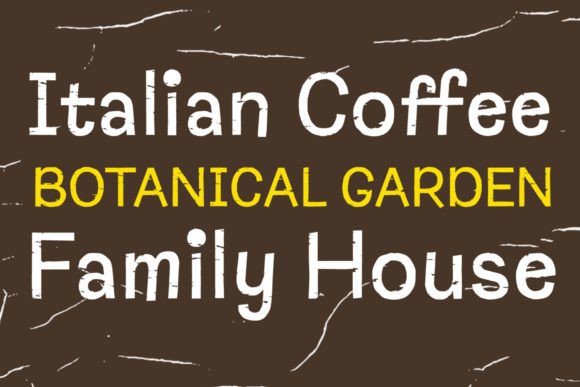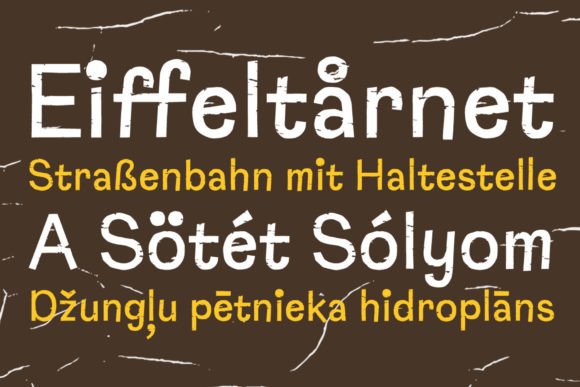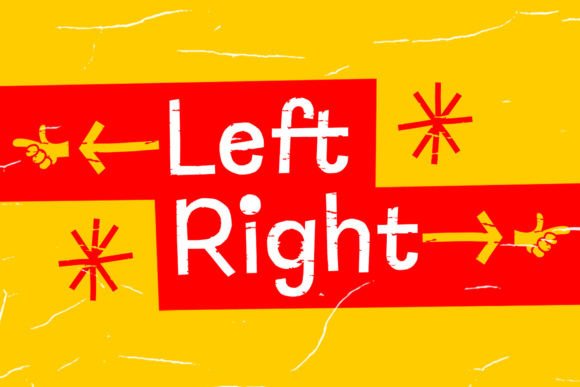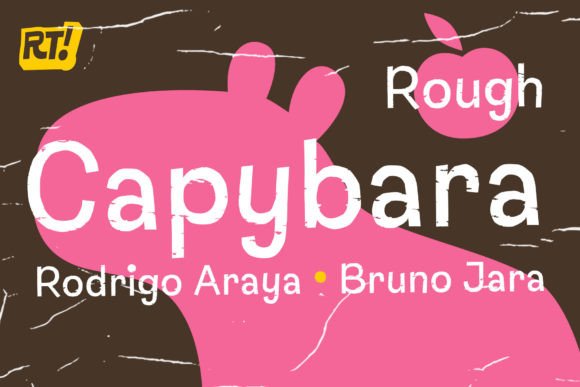
Introducing Capybara Rough Font: The Perfect Choice for Youthful and Playful Designs
Are you a designer or crafter looking for a font that exudes a playful and informal vibe? Look no further than Capybara Rough Font! This charming typeface is perfect for creating eye-catching titles and logos for youth and children’s projects. With its rough texture and carefree style, Capybara Rough is sure to capture the attention of your audience and leave a lasting impression.
What Makes Capybara Rough Font So Special?
Capybara Rough Font boasts a unique and distinctive style that sets it apart from other typefaces. Its rough texture gives it a hand-drawn, organic feel that’s perfect for creating designs that are playful, fun, and youthful. The font contains the Cyrillic alphabet, making it a great choice for designers who need to create content for Russian-speaking audiences or for projects that require a touch of Eastern European flair.
But that’s not all – Capybara Rough Font also features alternatives, ligatures, and other special characters that allow you to customize your designs and make them truly unique. Whether you’re creating a logo, title, or poster, this font has everything you need to create a stunning and effective design.
The Benefits of Using Capybara Rough Font
So why choose Capybara Rough Font for your next design project? Here are just a few of the benefits of using this amazing typeface:
- Perfect for youth and children’s designs: Capybara Rough Font is specifically designed with young audiences in mind. Its playful style and rough texture make it perfect for creating titles and logos that kids will love.
- Cyrillic alphabet support: Whether you’re creating content for Russian-speaking audiences or simply want to add a touch of Eastern European flair to your designs, Capybara Rough Font has got you covered.
- Highly customizable: With alternatives, ligatures, and other special characters, Capybara Rough Font gives you the flexibility to create truly unique designs that reflect your brand’s personality.
- Easy to read: Despite its rough texture, Capybara Rough Font is surprisingly easy to read, making it perfect for creating titles and logos that need to be both eye-catching and legible.
How to Use Capybara Rough Font in Your Designs
Ready to start using Capybara Rough Font in your designs? Here are a few tips to get you started:
- Pair it with a bold color: Capybara Rough Font looks amazing when paired with a bold, bright color. Try using it with a vibrant hue to create a design that’s sure to grab attention.
- Experiment with different sizes: Capybara Rough Font looks great in a variety of sizes, from small and delicate to large and bold. Experiment with different sizes to find the one that works best for your design.
- Add some texture: Capybara Rough Font already has a rough texture, but you can take it to the next level by adding some additional texture to your design. Try using a subtle gradient or a textured background to add depth and interest.
Capybara Rough Font is a unique and versatile typeface that’s perfect for designers and crafters who want to create playful, youthful designs. With its rough texture, Cyrillic alphabet support, and highly customizable characters, this font has everything you need to create stunning titles and logos that kids will love. So why wait? Download Capybara Rough Font today and start creating designs that are sure to capture the attention of your audience!